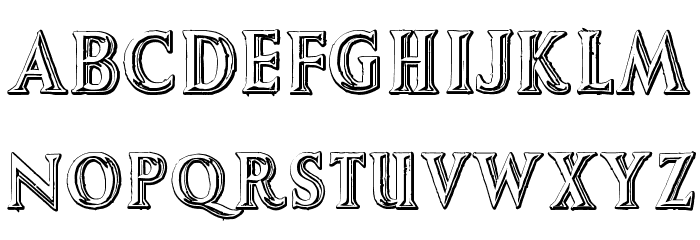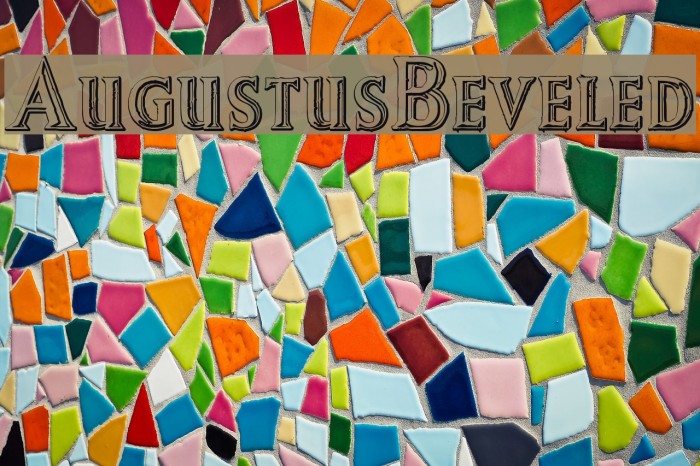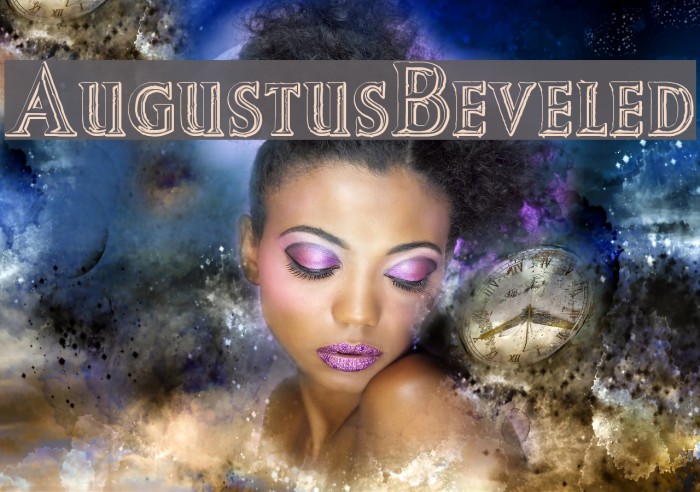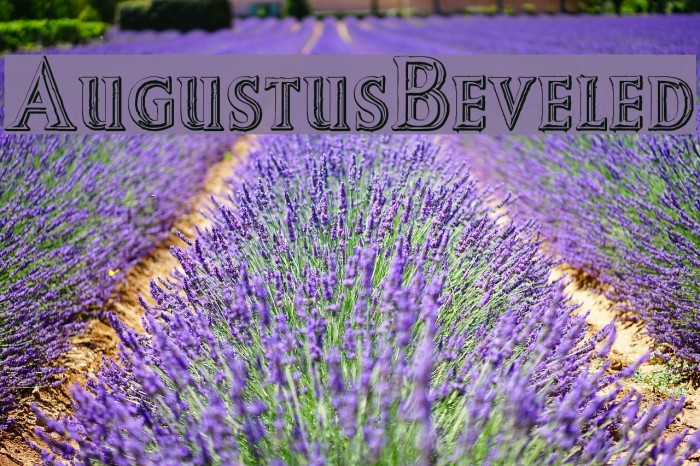
AugustusBeveled Font
This font features a distinct beveled style that gives each character a three-dimensional appearance. The uppercase letters are bold and impactful, with sharp edges and a classic serif design. The intricate detailing within each letter adds depth and sophistication, making it ideal for creating a strong visual presence. The font's structure is reminiscent of traditional Roman typefaces, yet it carries a modern twist with its unique beveled effect. This combination of classic and contemporary elements makes it versatile for various design applications. The spacing between characters is balanced, ensuring readability while maintaining its decorative appeal.
A bold, beveled serif font with a three-dimensional, classic yet modern look.
- Proposed Projects: Ideal for logos, headlines, posters, and any design requiring a strong, elegant typeface.
- Overall Style: Classic, Decorative